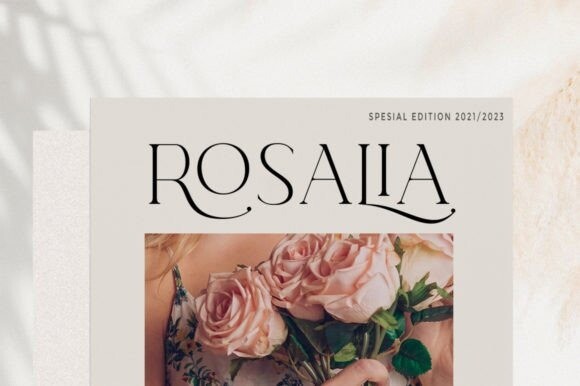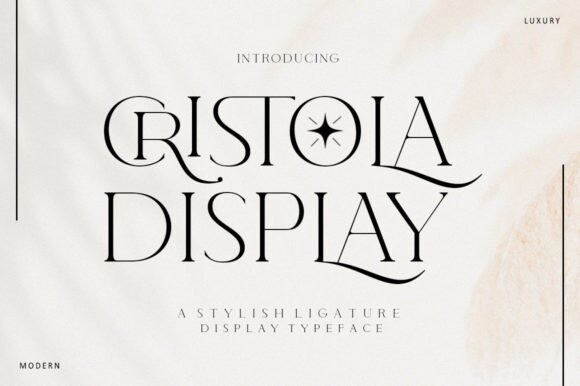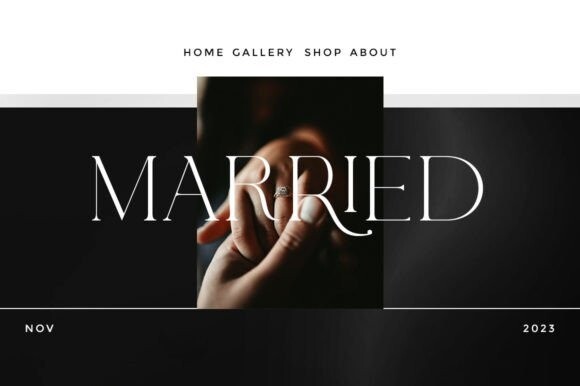
Cristola Display Font
Cristola Display is a sophisticated, charming font with a fashionable touch. Specially designed for luxury, elegant, feminine projects, this font is perfectly suitable for creating modern, chic designs. This font is PUA encoded which means you can access all the glyphs and ligatures with ease!